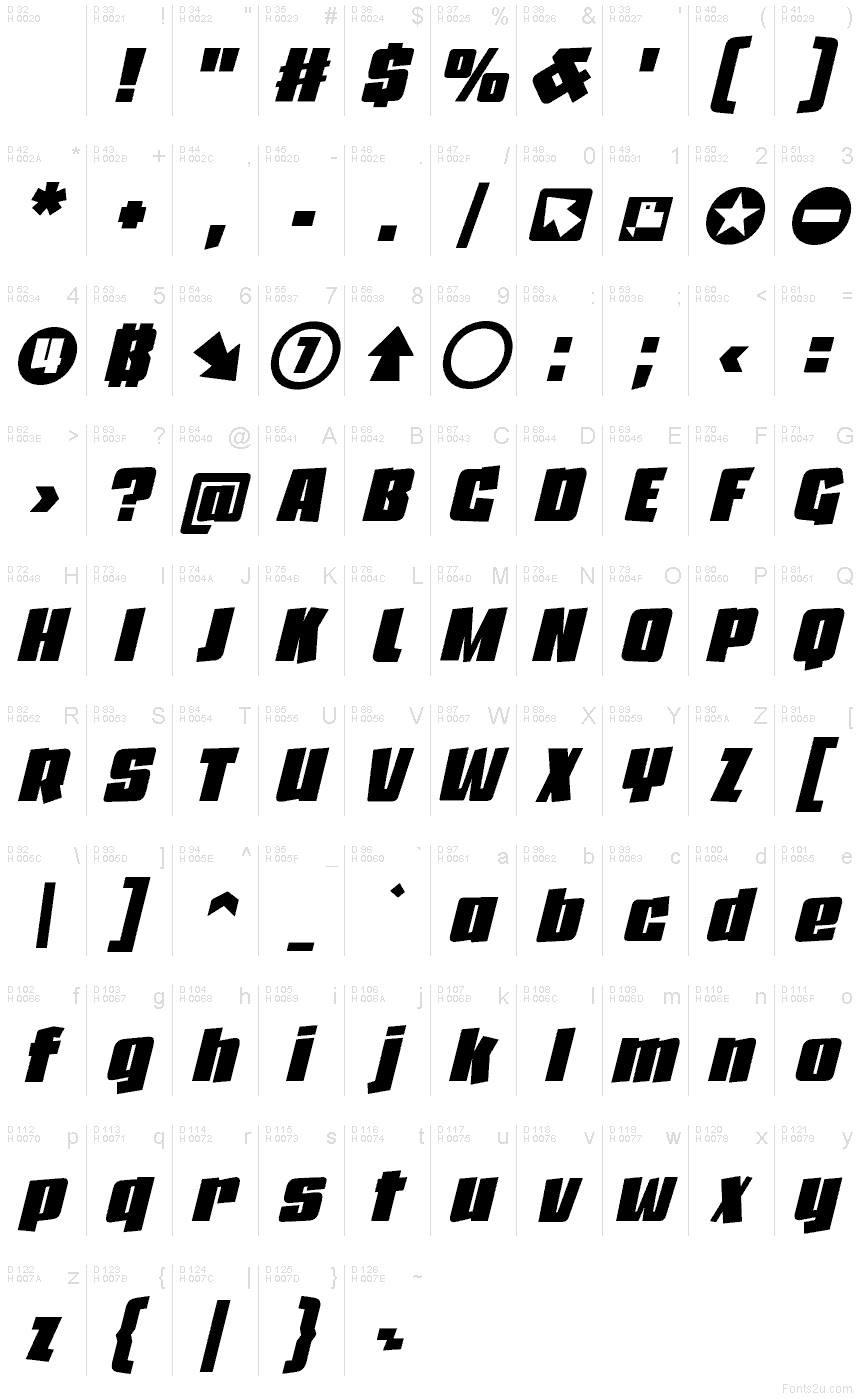
Maketa IT Normal Italic
Maketa IT Italic font by Fernando Haro is an angled italicized geometric typeface with a bold character and assertive presence. This comic-style display font offers a modern aesthetic along with a heavy visual impact, typical of designs using an uppercase letter set. Each letter carries enough weight to add focus and attention, in addition to pitch-perfect legibility.
Maketa is a typeface that combines impact, dynamism, and sophistication. Available in Regular and Italic, it's ready to take your designs to the next level.
Its stroke evokes an aesthetic somewhere between script and modernist fonts. This isn't just a typeface; it's a statement of energy, movement, and fun—a celebration of vibrant, contemporary designs. With a robust structure, pronounced contrasts, and a fresh, positive style! Maketa is the perfect choice for projects seeking visual impact.